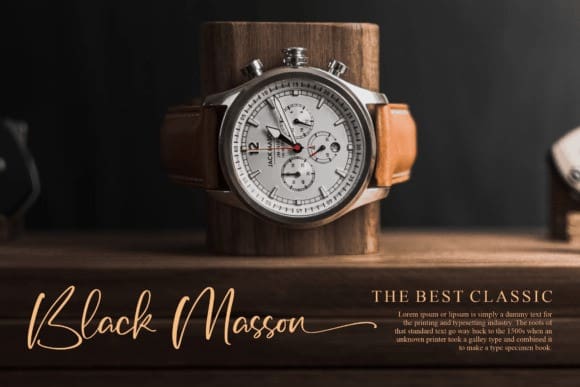
Jack Masson Font
Jack Masson Font is a beautiful handwritten font suitable for any projects such as logos, branding projects, homeware designs, product packaging, mugs, quotes, posters, shopping bags, T-shirts, book covers, name cards, invitation cards, greeting cards, labels, photography, watermarks, special events, and all your other lovely projects that need a beautiful script taste.